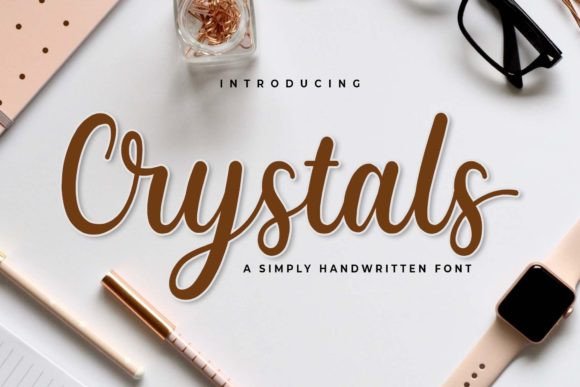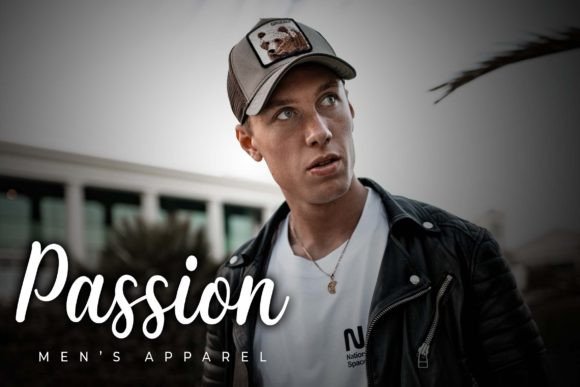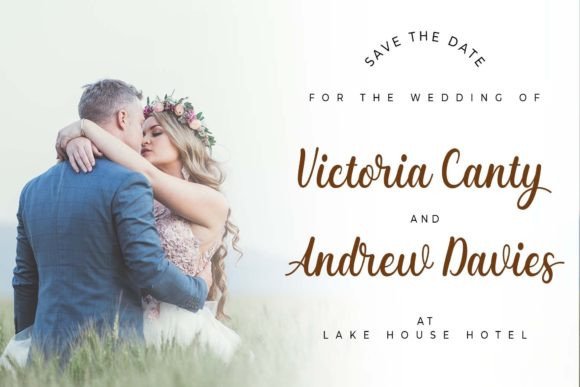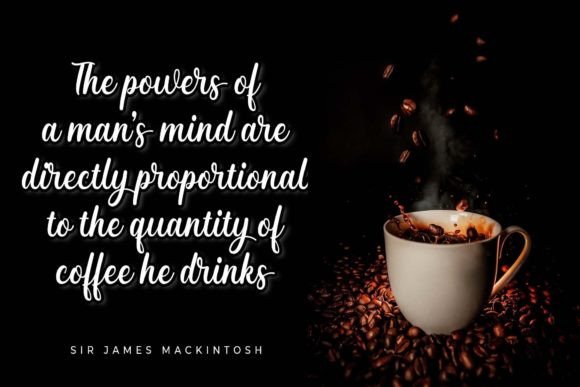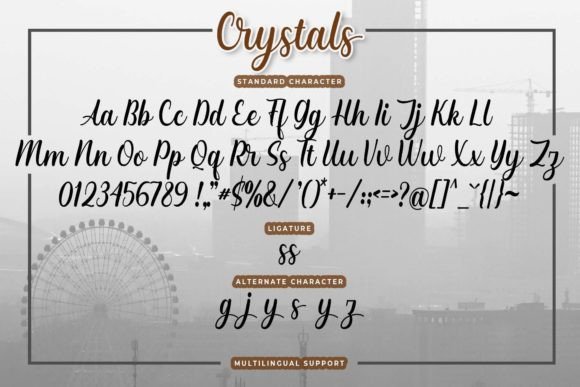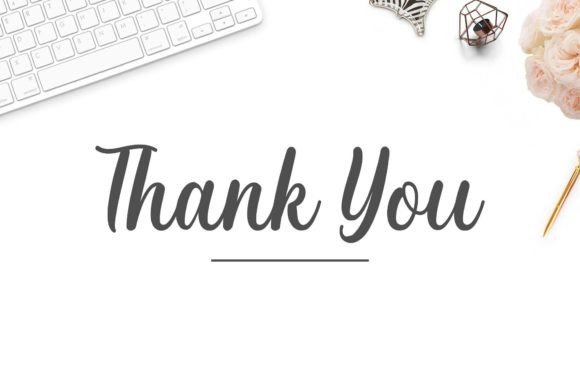
Crystals Font
Crystals is an elegant script font with a contemporary atmosphere and impeccable form, inspired by a timeless classic calligraphy. Not too thin and not too thick, this font was designed to enhance the beauty of your projects. This font is PUA encoded which means you can access all glyphs and swashes with ease!